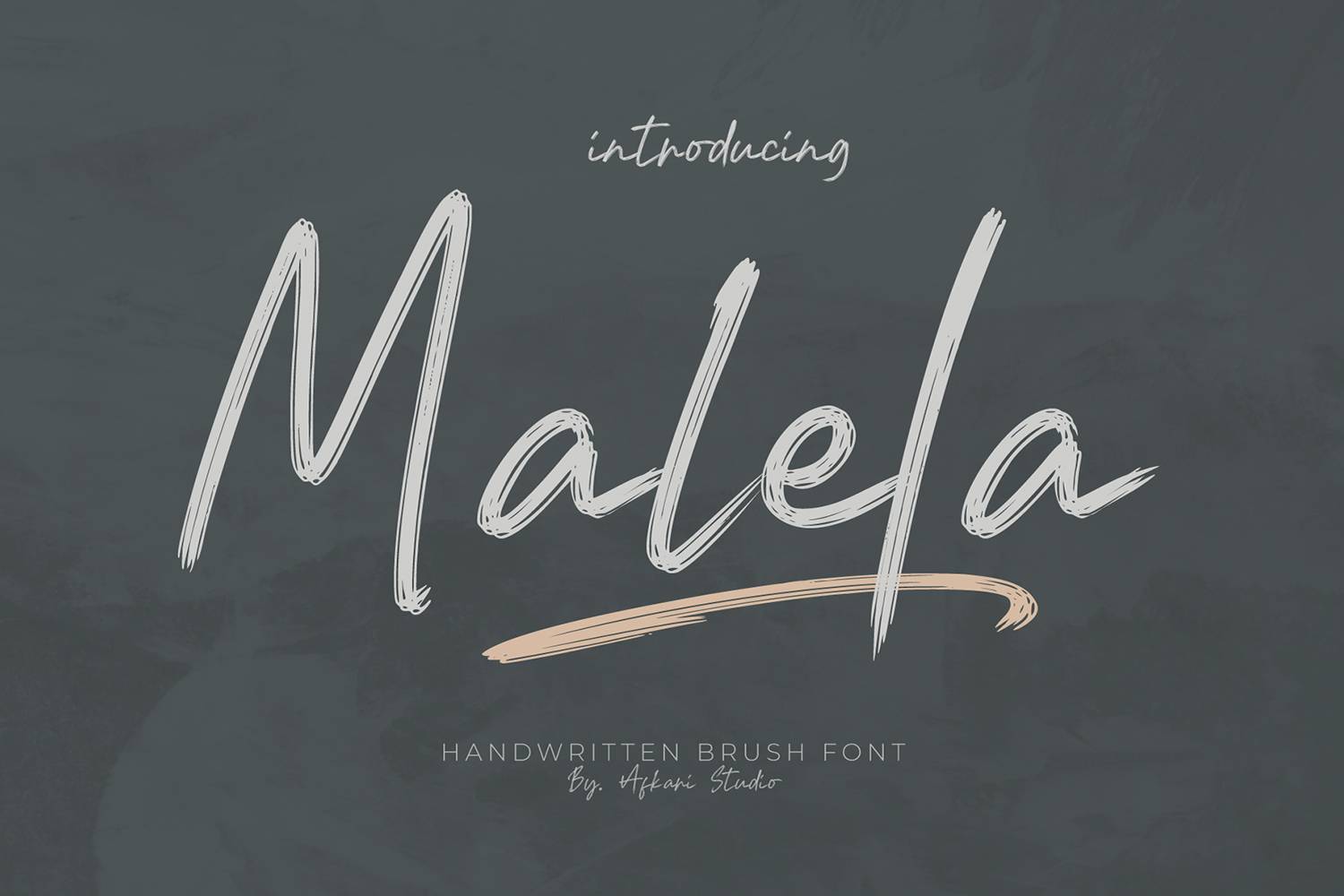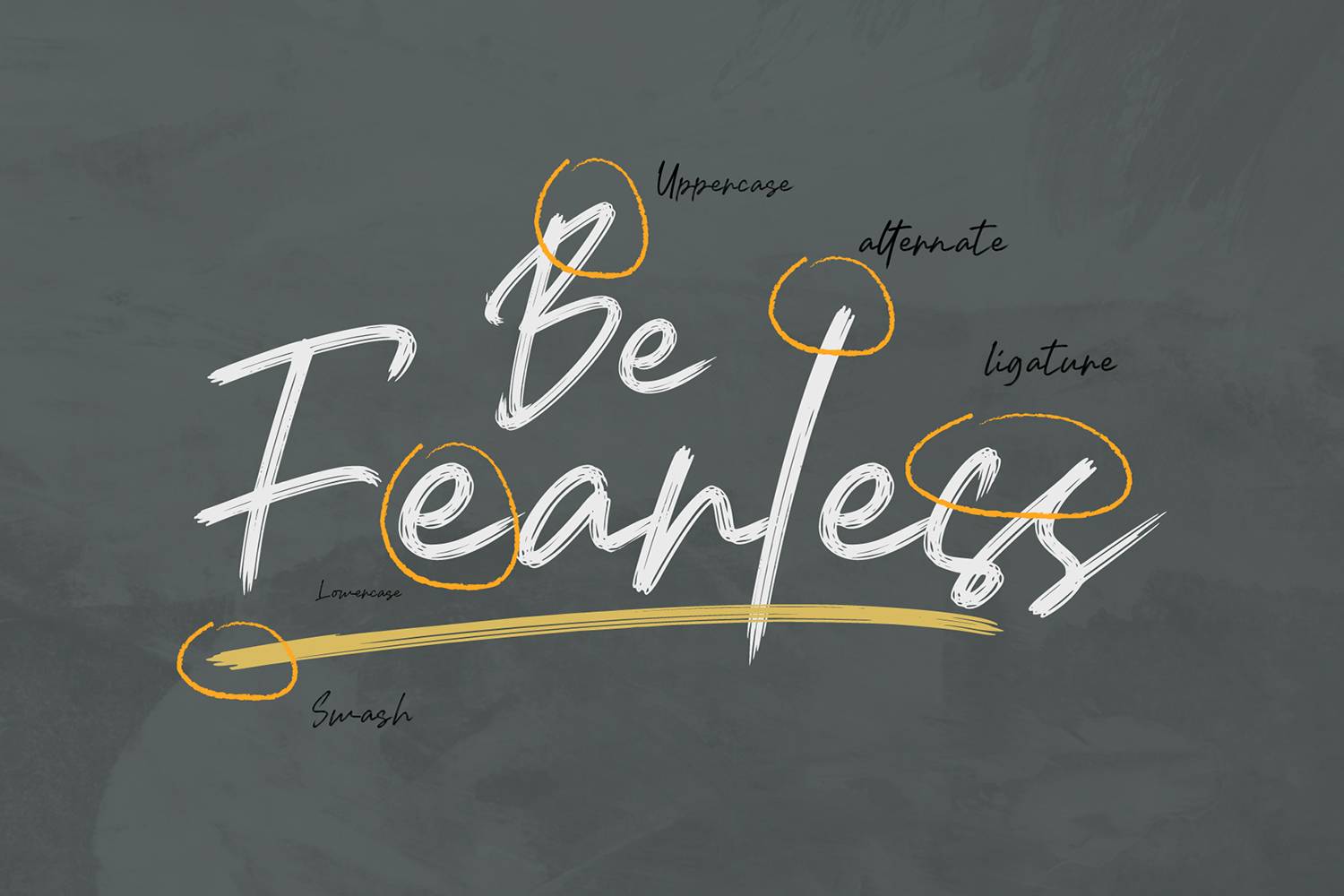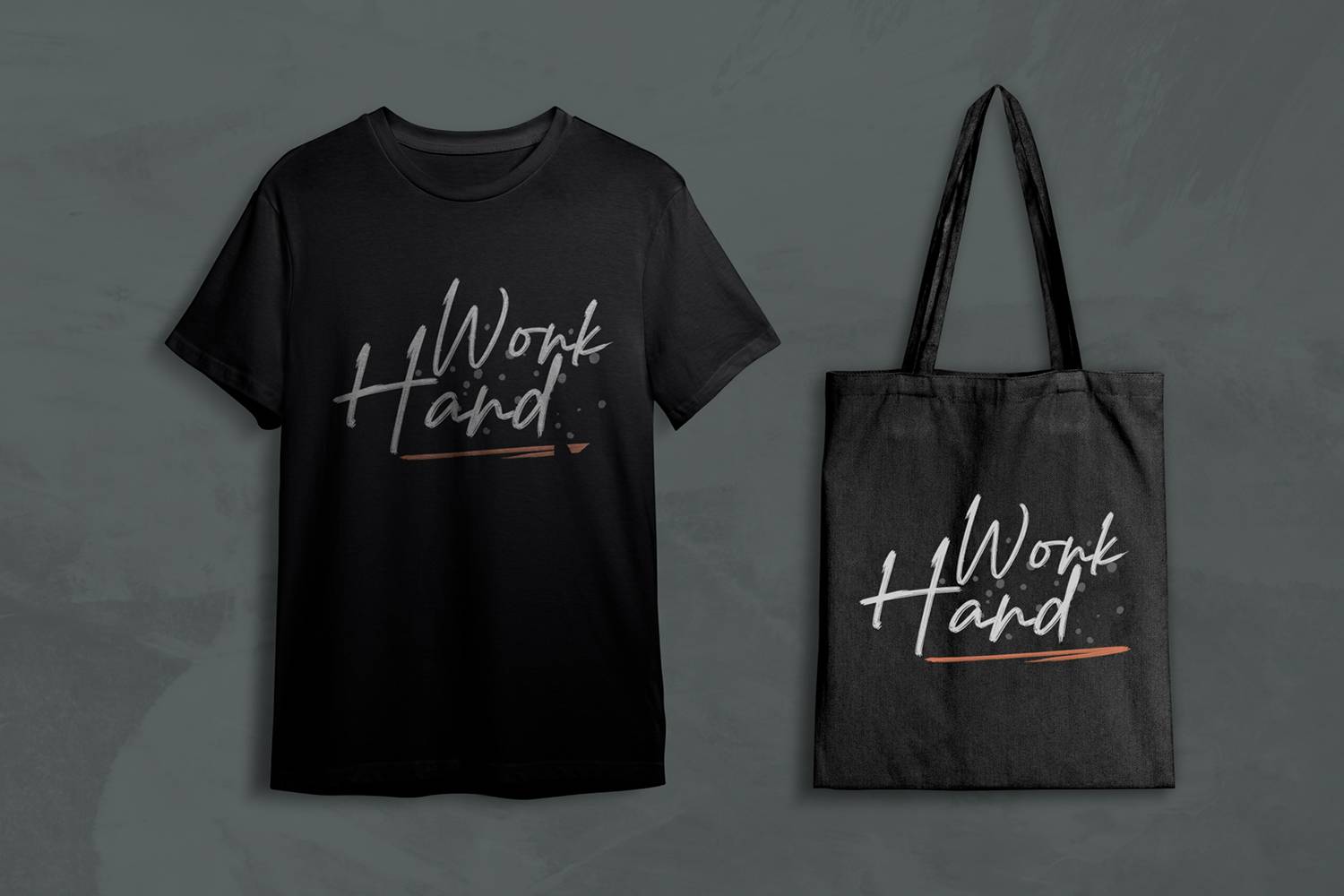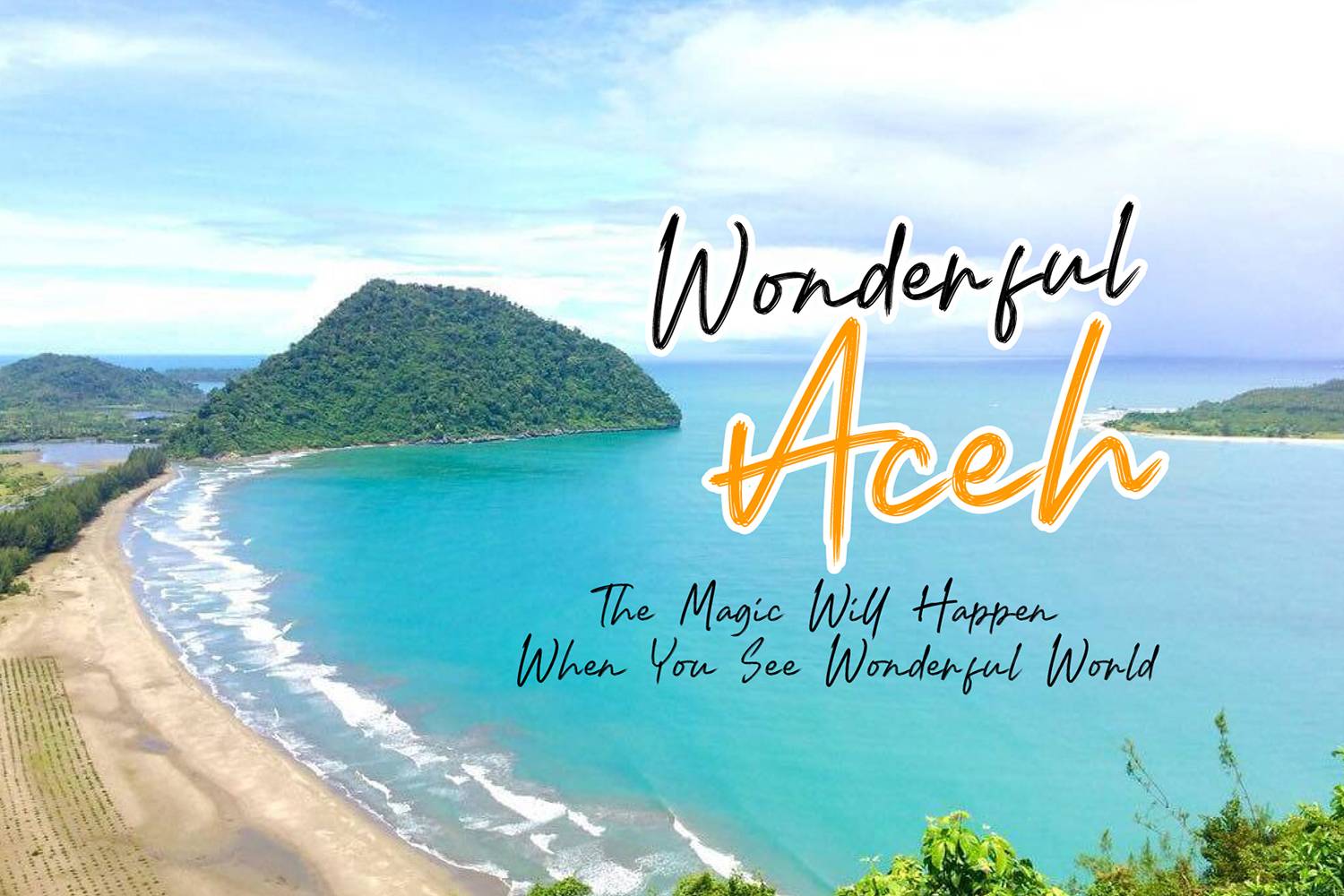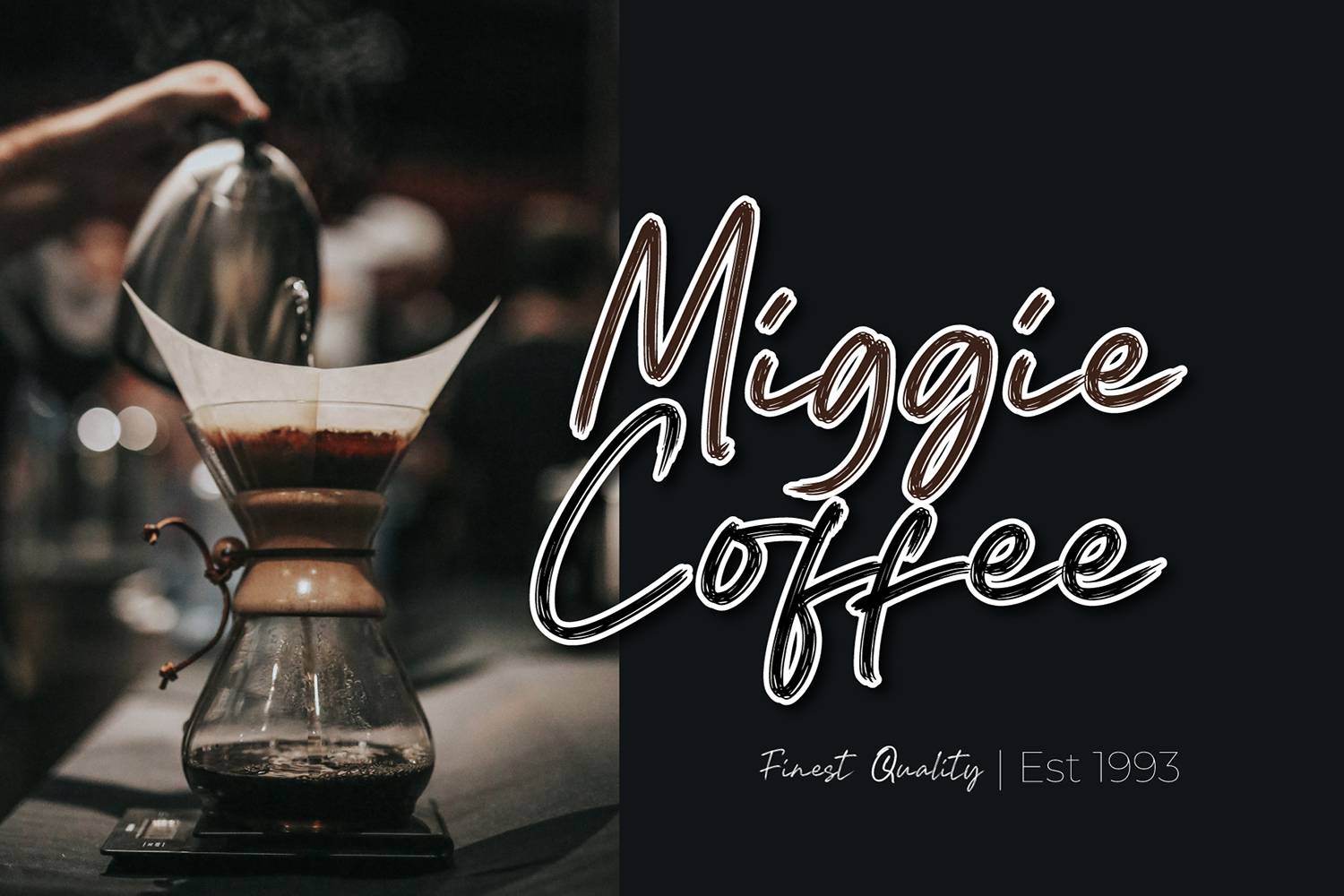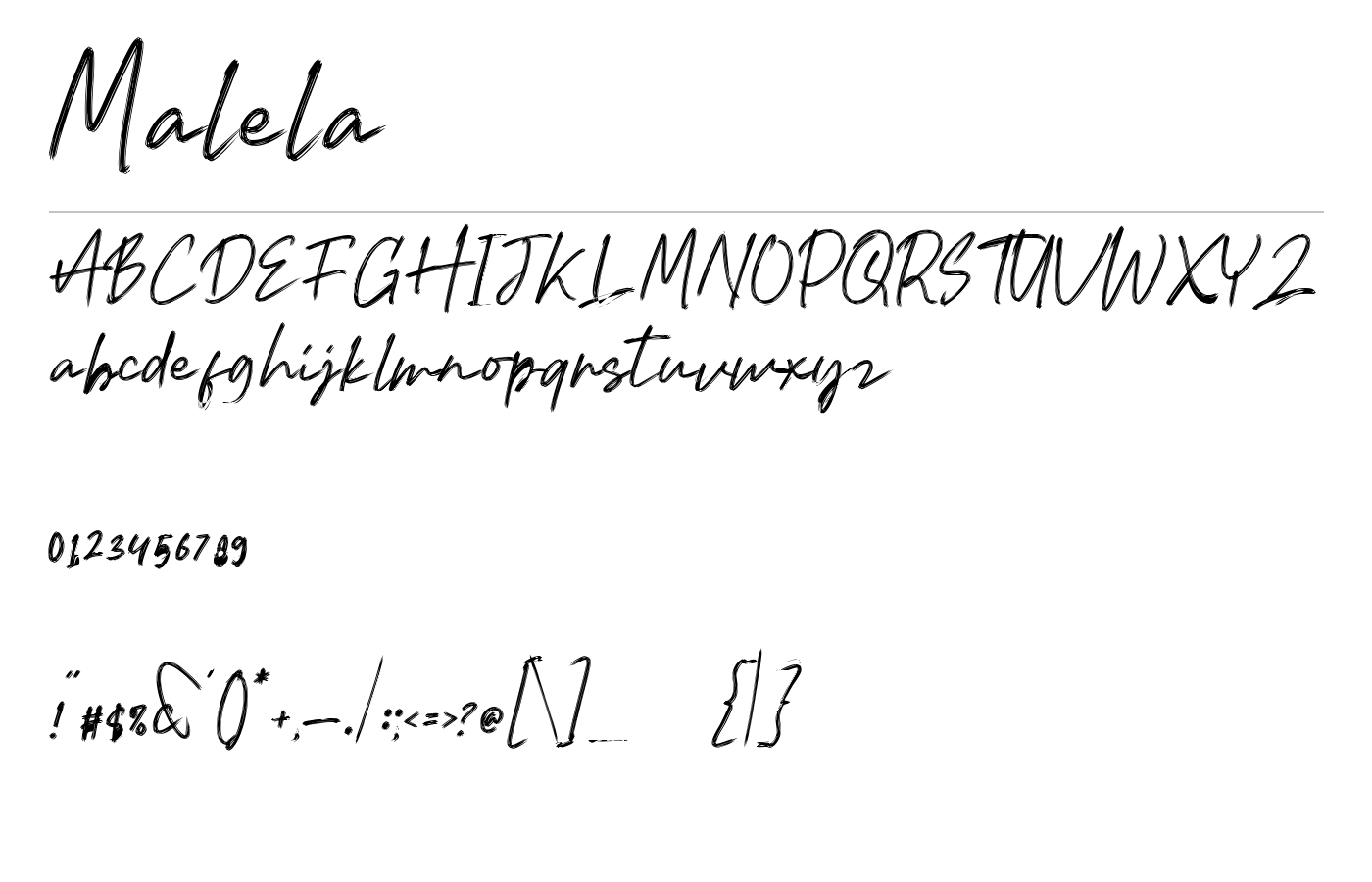
Malela is a lively handwritten script font with a textured, brushstroke appearance that gives it a dynamic and personal feel. Its casual, slightly rough lines create an expressive and artistic vibe, making it ideal for creative projects, branding, or invitations that want to convey warmth and individuality. This font works well for headlines, logos, and social media graphics where a handcrafted, approachable style is desired.
Malela Font
About Malela Font
| Font family | Malela Font |
| Designer | Musthafa Kamal Emje - Afkari Studio |